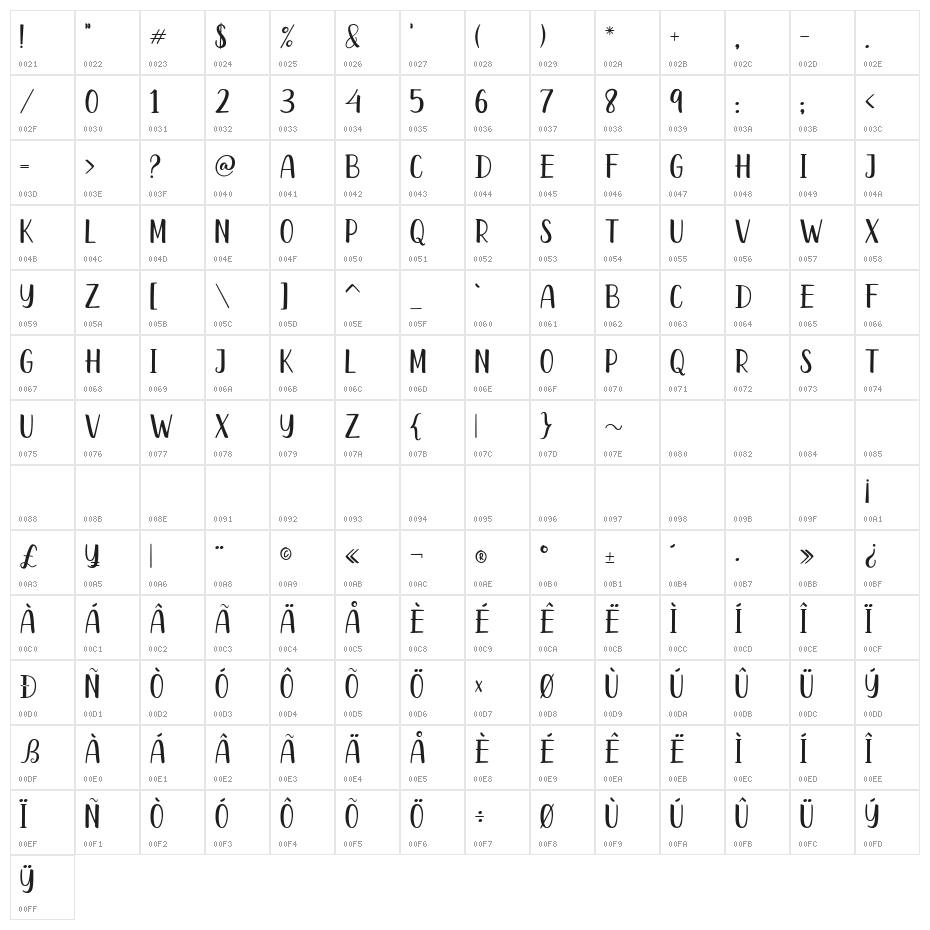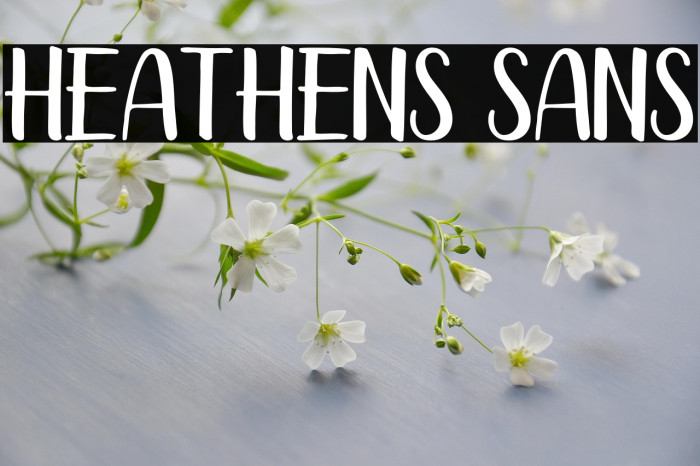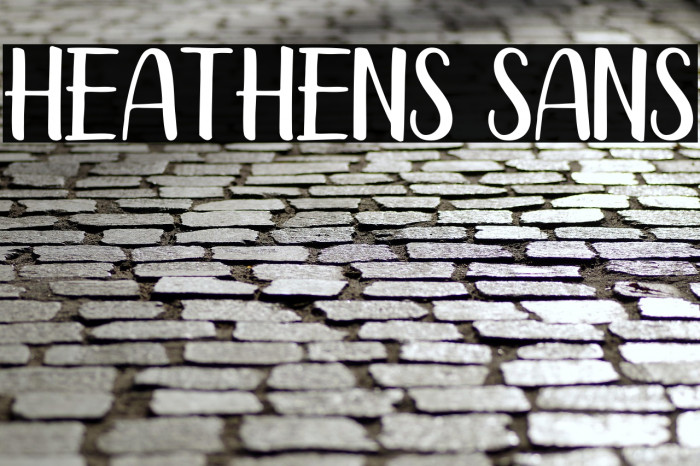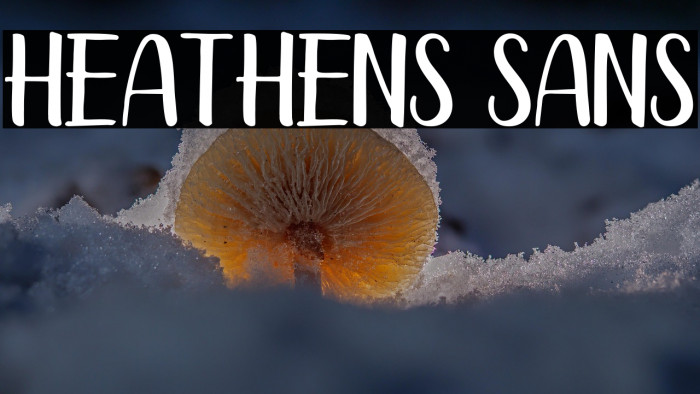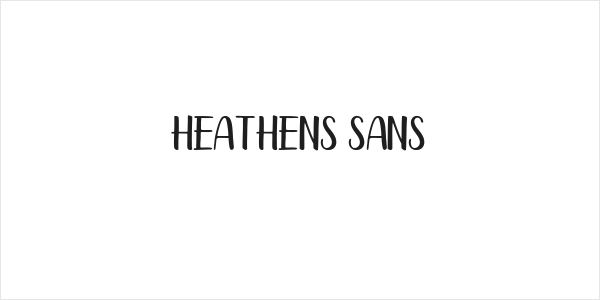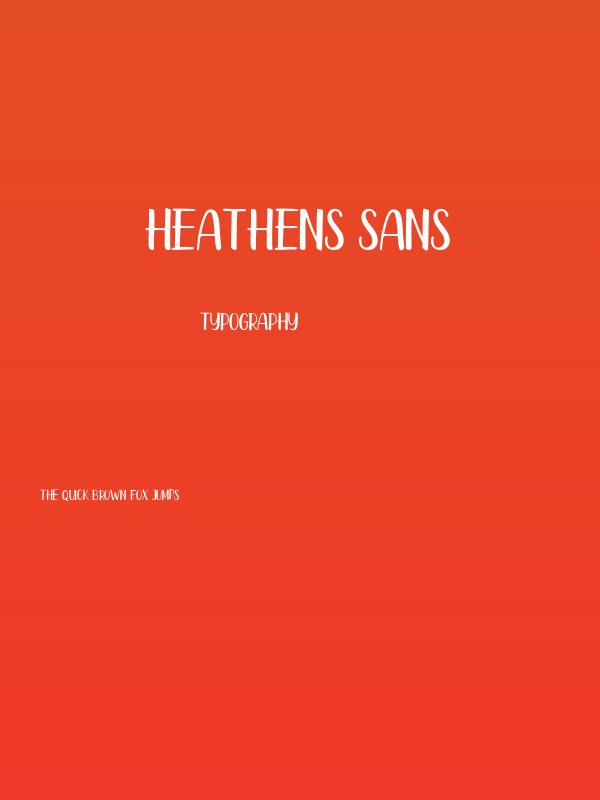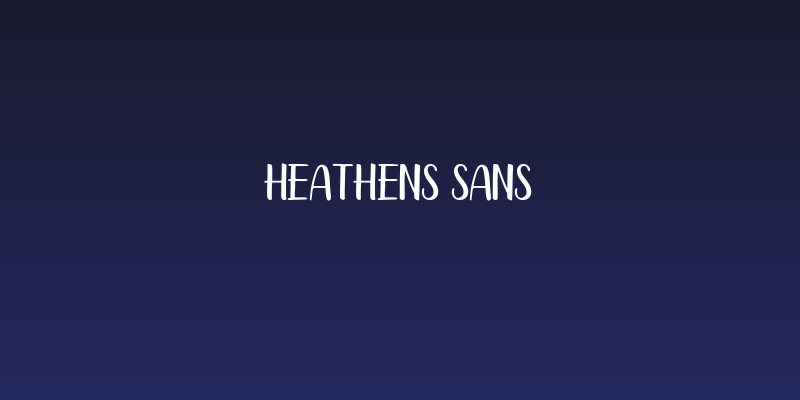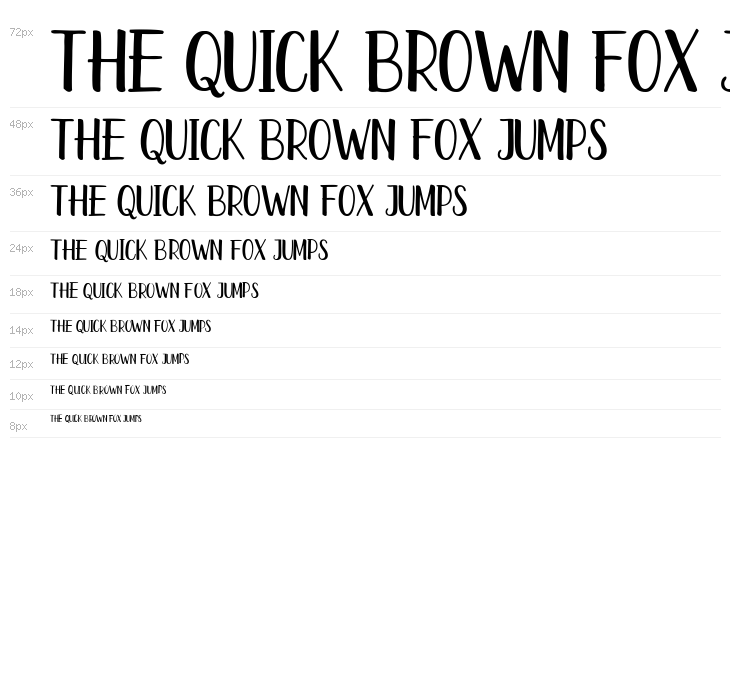
Heathens Sans Font
Heathens Sans Description
This font features a playful and energetic style with a handwritten appearance. The characters are slightly irregular, giving it a lively and informal feel. The strokes are bold and consistent, with a slight slant that adds to its dynamic nature. The uppercase and lowercase letters maintain a cohesive look, while the numerals and special characters complement the overall design. This font is ideal for projects that require a personal touch or a casual vibe.
| Proposed Projects | Ideal for greeting cards, posters, social media graphics, and branding projects that require a personal and casual touch. |